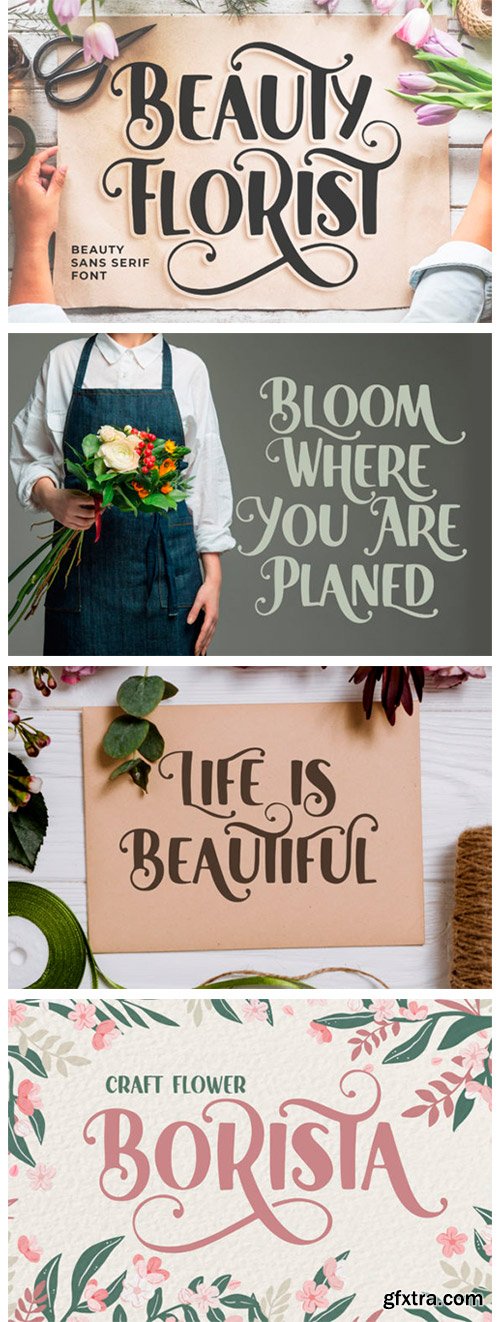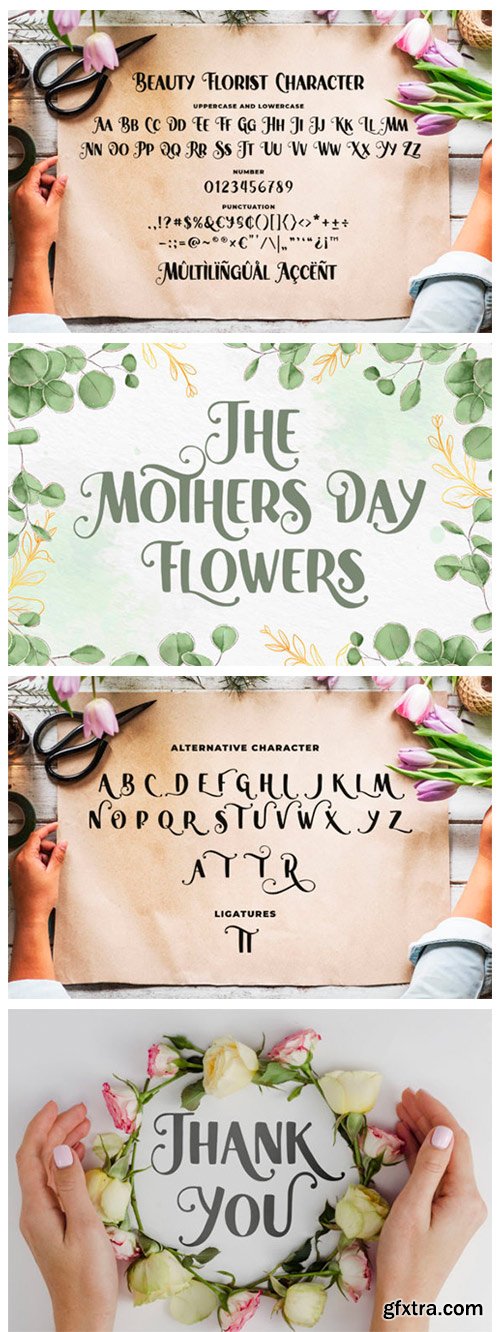
Beauty Florist Font
Beauty Florist is a joyful and elegant sans serif font. Distinct and incredibly versatile, this font will be the ideal choice for a wide range of designs.